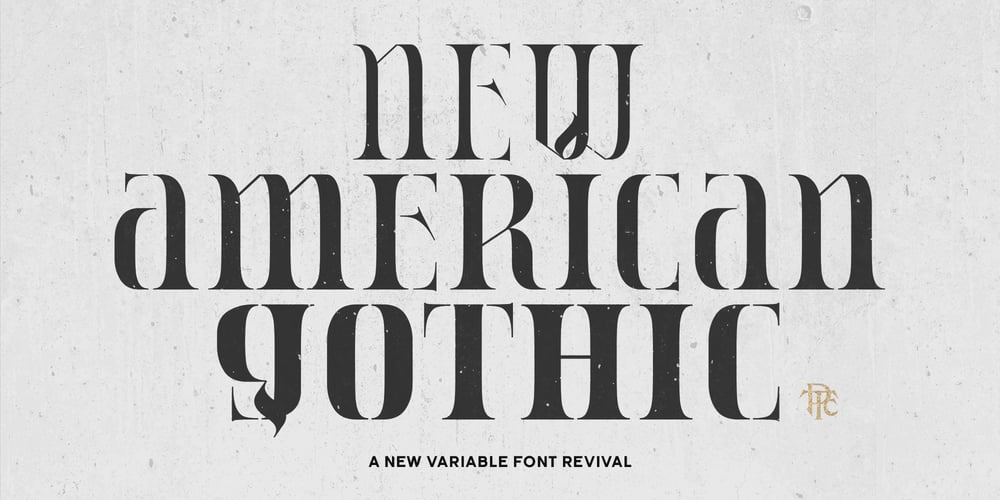
New American Gothic Font Family was designed by Chad Palmer and published by Palmer Type Company. New American Gothic contains 1 styles and family package options. New American Gothic is a revival of my previous American Gothic, only now it is packed with a whole set of new features! This is a revival font which means you can seamlessly go from thin to bold all within a single font file. Way more symbols and special characters, multi-language support, even alternates and ligature combinations are included to make fun and creative designs with!